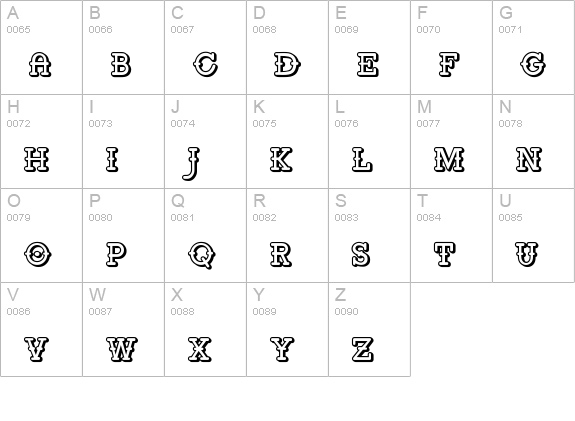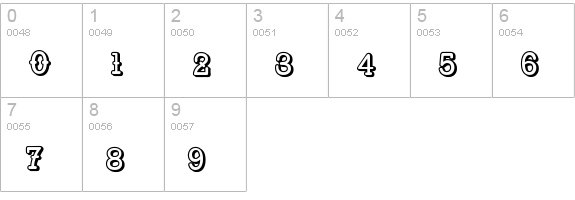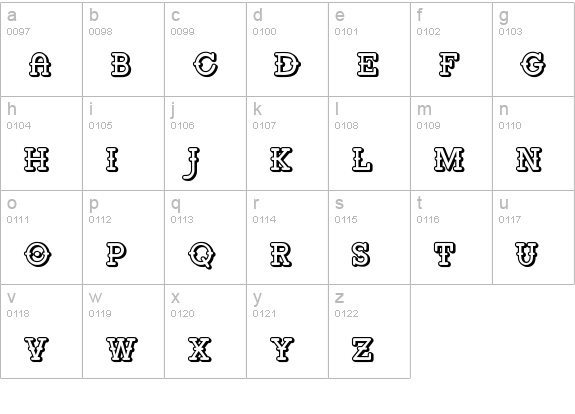
Introducing Retro Pop 3D font, a stunning display typeface that brings a nostalgic touch to your designs. This eye-catching font is perfect for adding a retro vibe to posters, logos, packaging, and more. With its unique 3D effect, Retro Pop 3D font will make your text stand out and grab attention. And the best part? Retro Pop 3D font is completely free to download! Simply visit FontsMarket.com to get your hands on this amazing font and start using it in your projects today. Embrace the retro charm and add a touch of nostalgia to your designs with Retro Pop 3D font.